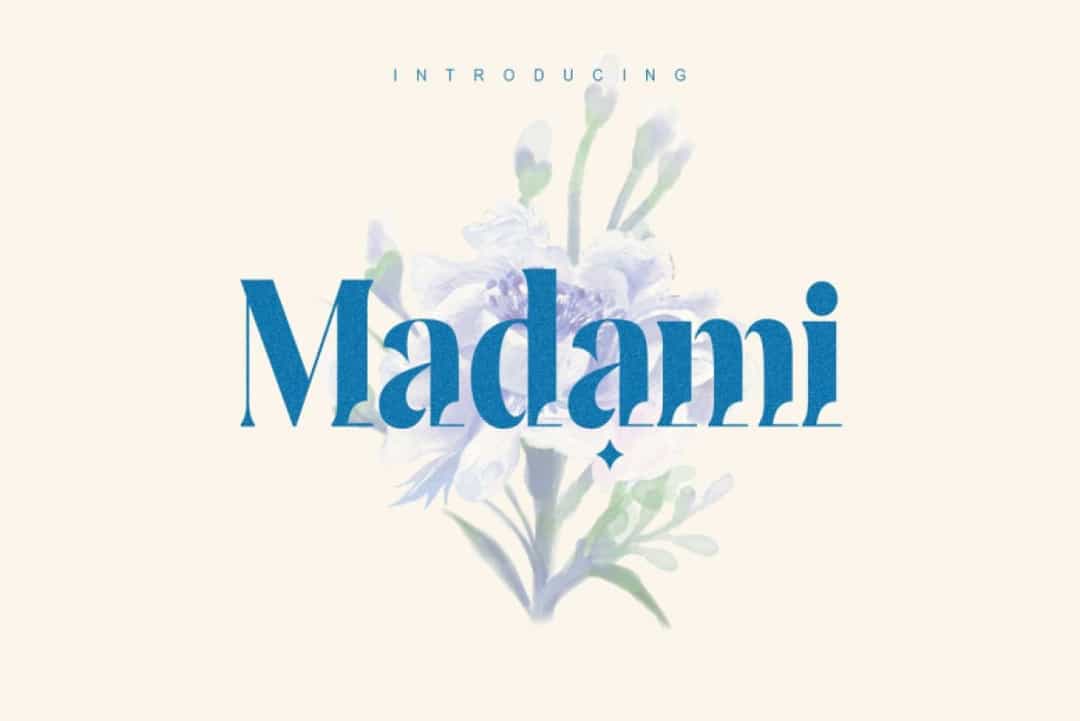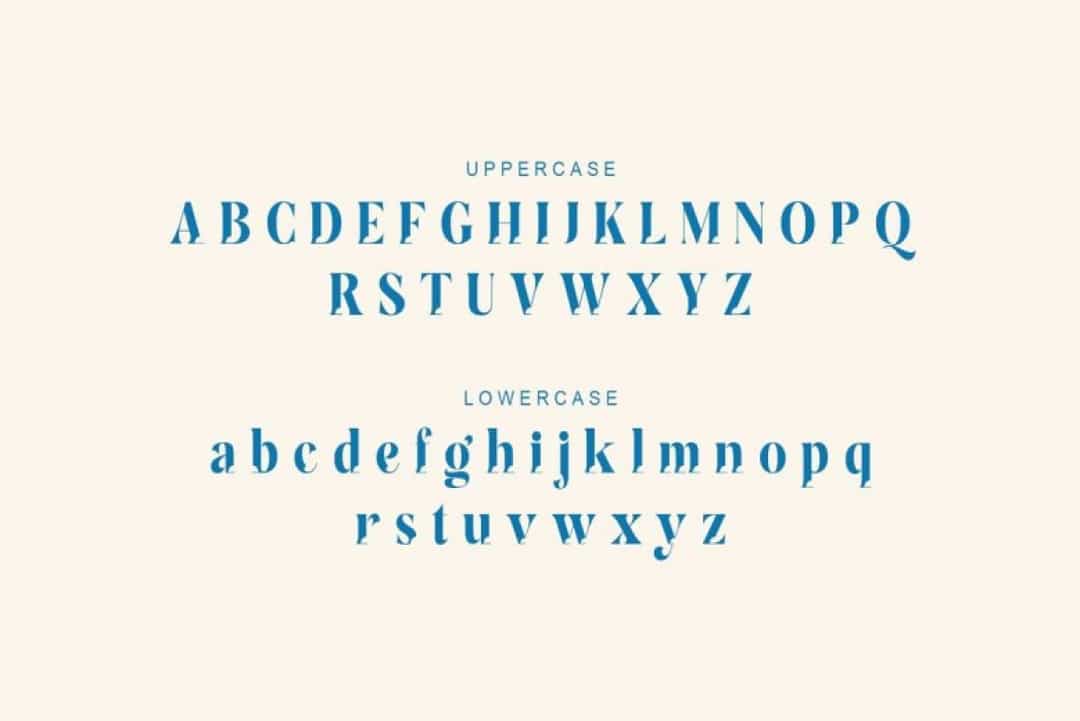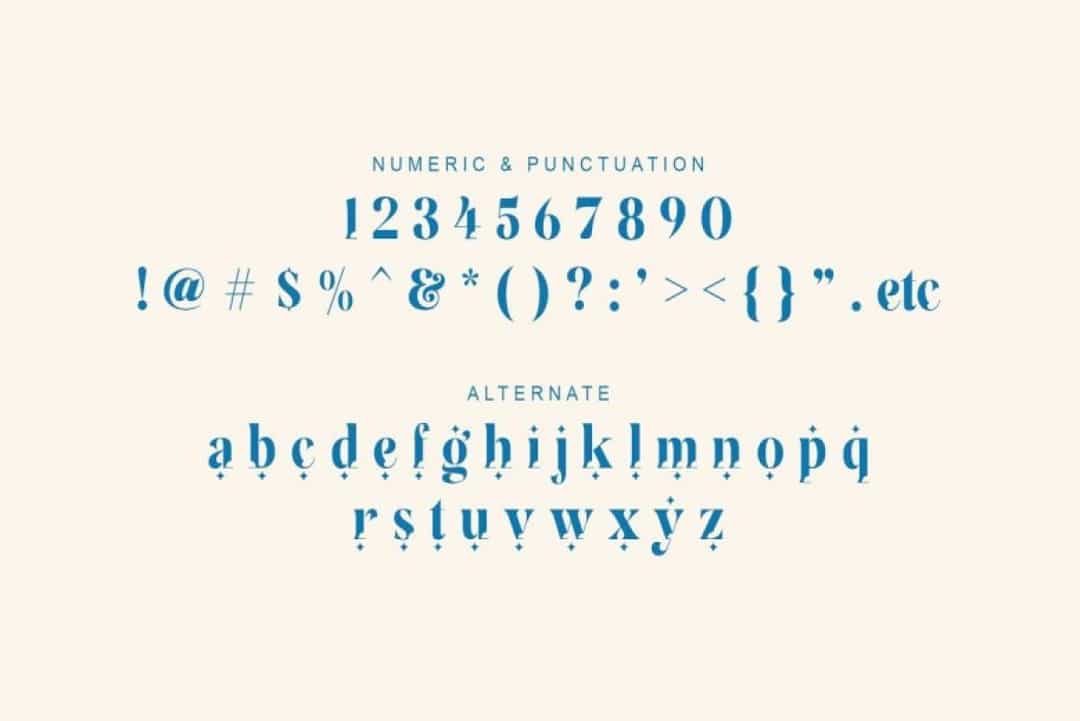
Madami Serif Font is a contemporary display font with an elegant, feminine, and sophisticated style, perfect for use on invitations, branding materials and other creative products. Additionally, it’s PUA encoded nature allows it to access all glyphs as well as swashes easily!